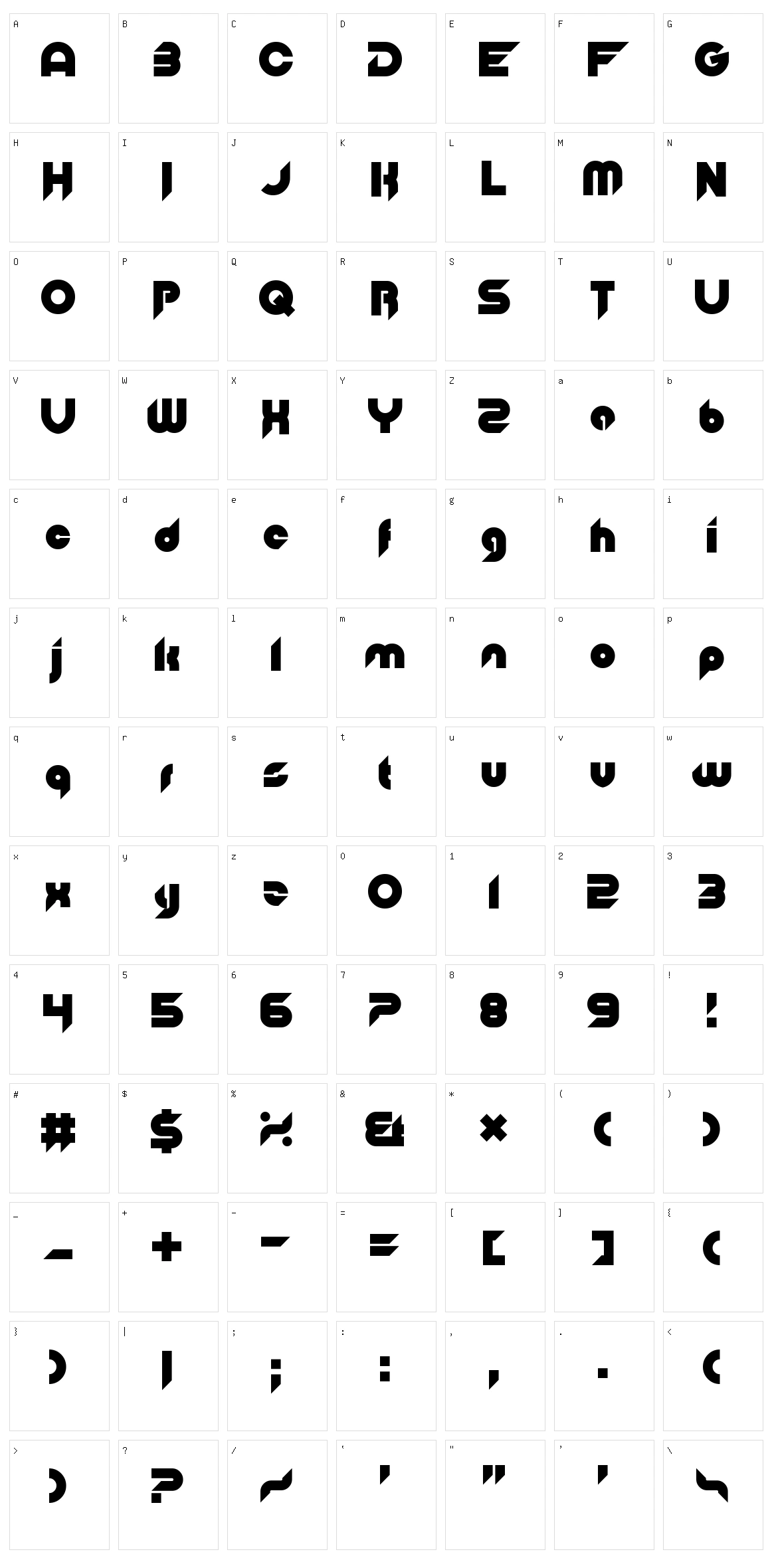
The free font Of The Blue Colour Of Her Eyes is carefully designed by Chequered Ink, showcasing a thoughtful balance of creativity and usability and belongs to the Techno font family. When you download the ZIP file, it contains only 7.82 KB of font files, making it lightweight and quick to download. Please review the license details below to understand permitted usage and distribution rights. If license information is not available, we recommend using this font for personal projects only or contacting the author directly for commercial usage permissions.